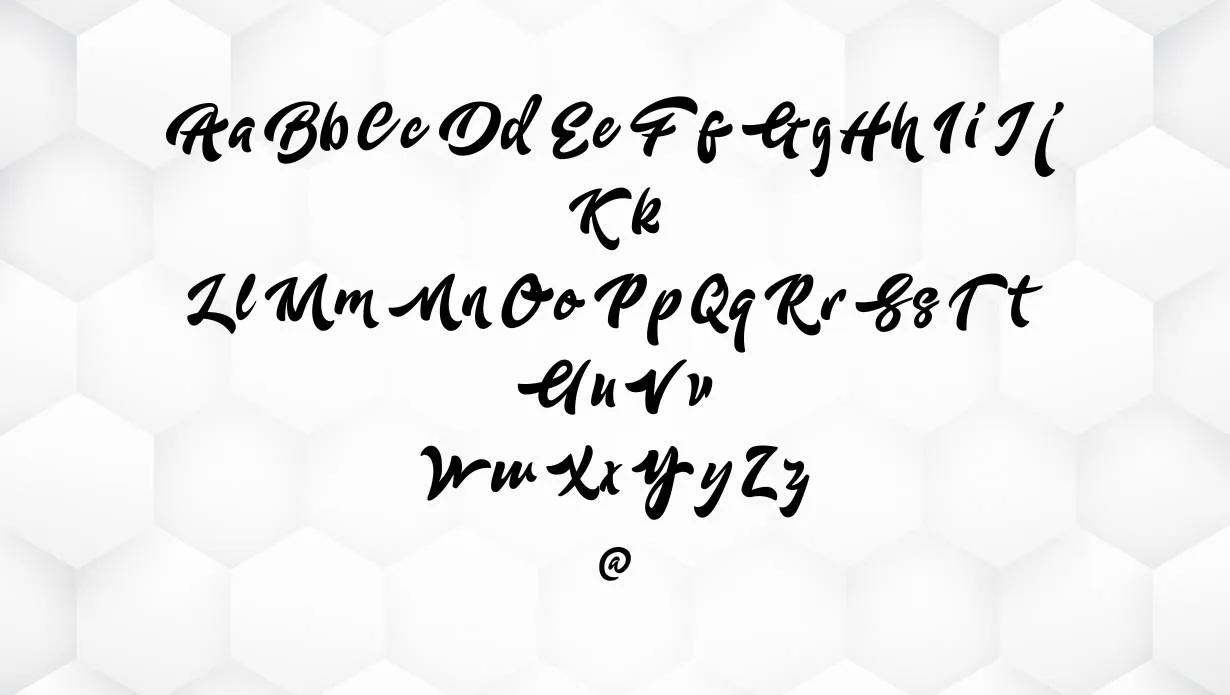
The Aldeit font is ideal for designs aiming for a clean and professional look. With its sleek and modern style, it conveys a polished and contemporary feel.
| Name | Aldeit Font |
| Designer | Easetype |
This font is often used in resumes, logos, or editorial content. The weight of the Aldeit font varies from regular to bold, offering options for different design needs. Its width is usually standard, allowing for readability in various applications, especially in longer blocks of text or titles.